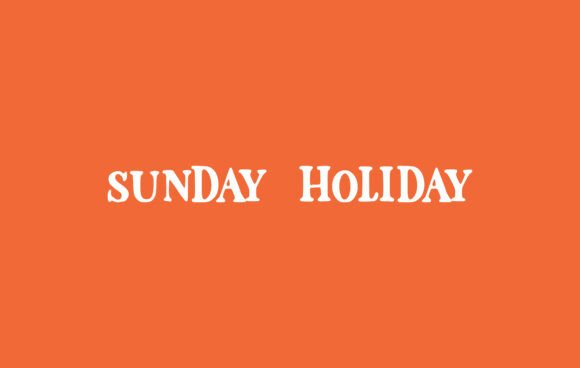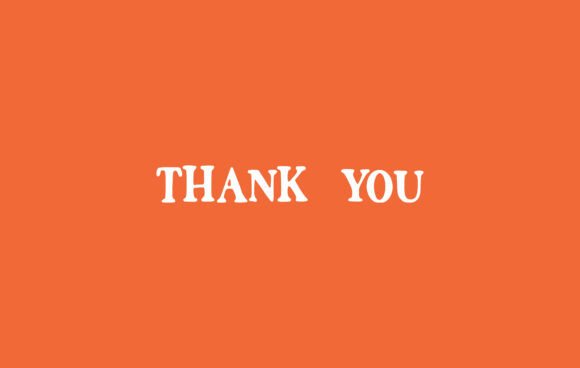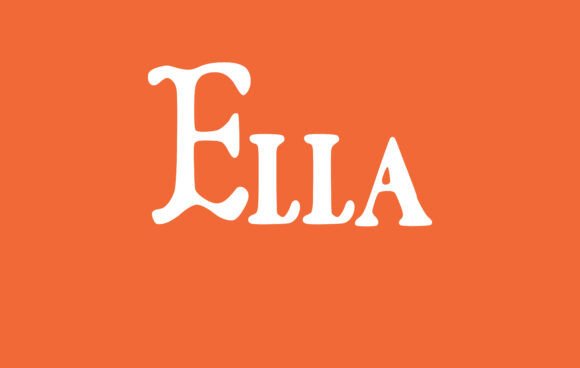
Ella Font: The Ultimate Handwritten Font for Creative Designs
Are you looking for a font that can add a touch of romance and elegance to your designs? Look no further than Ella Font, an authentic handwritten font that is sure to become your new favorite. With its unique blend of sophistication and playfulness, Ella Font is the perfect choice for designers and crafters who want to take their creative ideas to the next level.
What Makes Ella Font So Special?
Ella Font is an expertly designed handwritten font that boasts a romantic touch. Its authentic and natural look makes it perfect for a wide range of design projects, from magazine headlines and social media graphics to branding, wedding invitations, and cards. The font’s legibility and versatility make it an excellent choice for both title and body text, allowing you to use it in a variety of contexts.
Key Features of Ella Font
• Authentic Handwritten Look: Ella Font has a genuine handwritten feel that adds a personal touch to your designs.
• Romantic Touch: The font’s elegant and sophisticated design makes it perfect for projects that require a touch of romance.
• Legible and Versatile: Ella Font is easy to read and can be used for both title and body text, making it a great choice for a wide range of design projects.
• Perfect for Various Designs: From magazine headlines and social media graphics to branding, wedding invitations, and cards, Ella Font is the perfect choice for many different design projects.
Why Designers and Crafters Love Ella Font
Ella Font has quickly become a favorite among designers and crafters due to its unique blend of style and versatility. Here are just a few reasons why:
• High-Quality Design: The font’s high-quality design ensures that it will look great in any design project, from print to digital.
• Customization Options: Ella Font can be easily customized to fit your specific design needs, allowing you to add your own personal touch.
• Pair it with Other Fonts: Ella Font pairs well with a variety of other fonts, making it easy to create unique and interesting typography combinations.
• Experiment with Colors: The font’s elegant design looks great in a variety of colors, so don’t be afraid to experiment and find the perfect hue for your design.
• Use it for Headlines and Body Text: Ella Font is legible and versatile, making it perfect for use in both headlines and body text.
Ella Font is an authentic handwritten font with a romantic touch that is sure to become a favorite among designers and crafters. Its unique blend of style, versatility, and legibility make it perfect for a wide range of design projects, from magazine headlines and social media graphics to branding, wedding invitations, and cards. Whether you’re looking to add a touch of elegance to your designs or simply want a font that is easy to use and customize, Ella Font is the perfect choice.